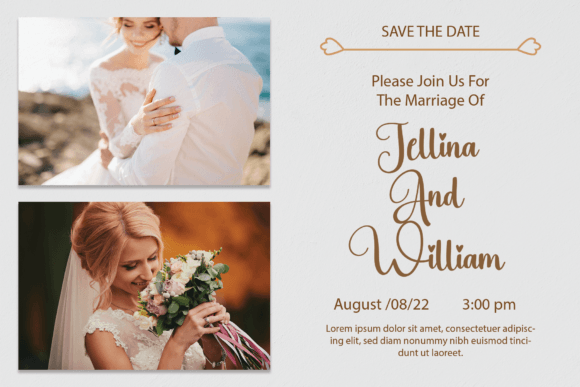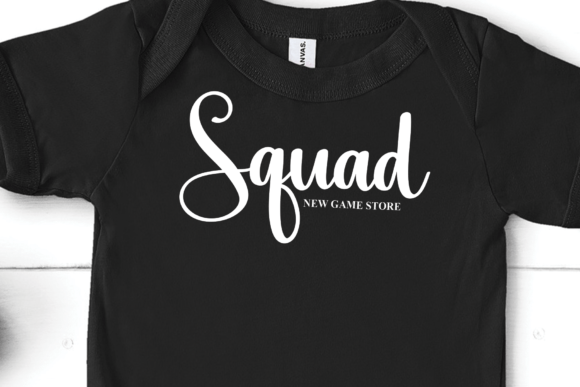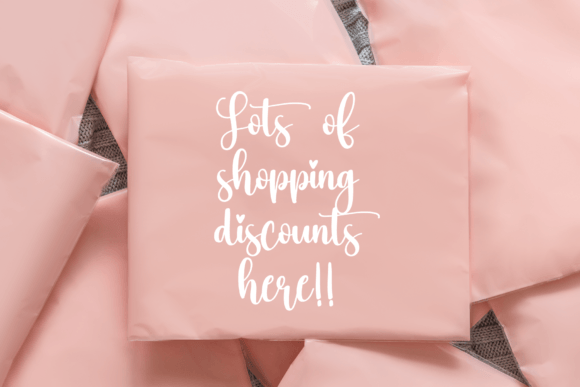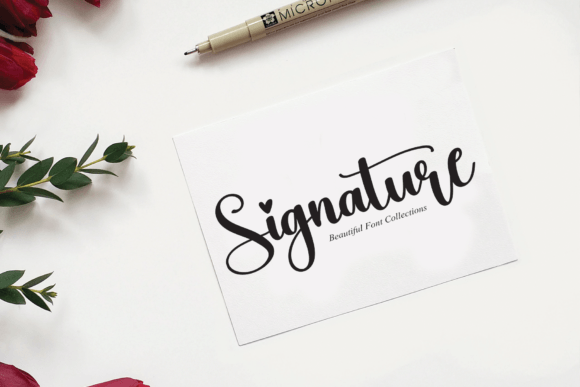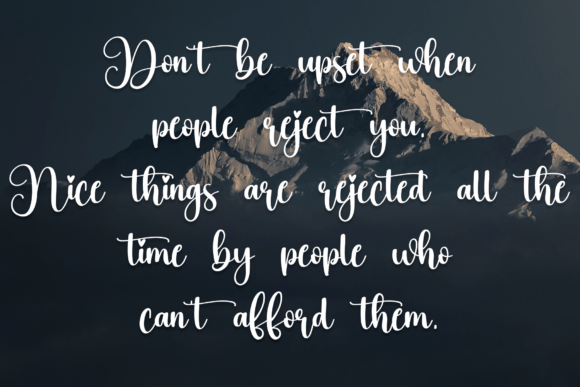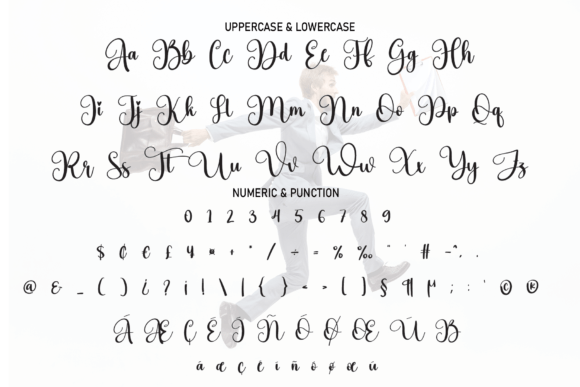
Unlock the Power of Timeless Style with Action Font
Remember the thrill of bringing a creative idea to life? The rush of excitement as you start sketching out your vision, the sense of satisfaction as the pieces fall into place, and the pride of holding your finished project in your hands? For designers, these moments are what make all the hard work worth it. But sometimes, the perfect font can make all the difference in elevating your design from good to great.
That’s where Action Font comes in – a stylish handwritten font that exudes a contemporary atmosphere and impeccable form, inspired by timeless classic calligraphy. With its balanced and varied design, Action Font is the perfect choice for adding a touch of sophistication to your projects. Whether you’re working on a brochure, a website, or a social media campaign, Action Font is sure to leave a lasting impression.
Action Font Key Features
- Unique Characteristics: Features a bold, dynamic design with a mix of geometric and organic elements, creating a striking visual effect.
Action Font Review
I recently had the chance to work with Action Font, and I have mixed feelings about it. On one hand, it has some great qualities that make it suitable for certain projects.
- Eye-catching: The bold, dynamic style of Action Font grabs attention and is perfect for headings and titles.
- Easy to read: Despite its bold appearance, Action Font is surprisingly legible, making it a good choice for body text as well.
- Customization options: The font comes with a range of customization options, including different weights and styles, which can help it fit in with various design themes.
- Overuse: The bold style can become overwhelming if used too much, which may lead to design fatigue.
- Limited versatility: While Action Font works well for headings and titles, it may not be the best choice for more subtle or formal designs.
Overall, I think Action Font is a solid choice for projects that require a bold, eye-catching font. However, it’s essential to use it judiciously and balance it with other design elements to avoid overwhelming the viewer.
Tips for Getting the Most Out of Action Font
Experiment with different font sizes and styles to create a visually appealing design. Use Action Font in combination with other design elements to add a dynamic touch. Consider using Action Font in bold or italic styles to add emphasis to your text.
Action Font is commonly used in:
- Marketing materials such as brochures and flyers
- Presentations and slides
- Posters and banners
Alternatives to Action Font for Designers
Montserrat is a modern sans-serif font that is great for titles and headings. It is clean, simple, and highly legible. Use it for titles, headings, and short paragraphs where you need to convey a sense of urgency or importance. Montserrat is more versatile than Action Font, with a wider range of font sizes and styles available.
Lato is a sans-serif font that is designed for digital media. It is highly legible and has a clean, modern feel. Use it for body text, titles, and headings where you need a font that is easy to read on screens. Lato is more elegant than Action Font and has a wider range of font weights and styles available.